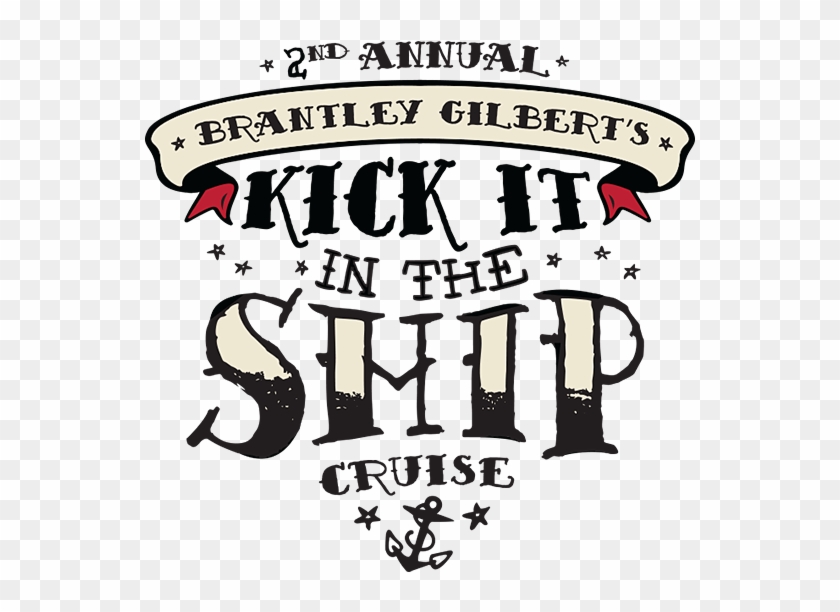
Sailor Jerry Font
Sailor Jerry Font - Web this is a vintage tattoo font mixed with that sailor jerry and ed hardy vibe as well as my own personal aesthetic. Web 1 2 looking for tattoo sailor fonts? Looking for sailor jerry sailor fonts? Every font is free to download! Looking for tattoo sailor jerry fonts? Click to find the best 14 free fonts in the sailor jerry sailor style. Web sailor stitch by out of step font company. Every font is free to download! Click to find the best 17 free fonts in the tattoo sailor style. Click to find the best 29 free fonts in the tattoo sailor jerry style.
Looking for sailor jerry sailor fonts? Web sailor stitch by out of step font company. Every font is free to download! Web this is a vintage tattoo font mixed with that sailor jerry and ed hardy vibe as well as my own personal aesthetic. Web sailor's delight by out of step font company. Looking for tattoo sailor jerry fonts? Click to find the best 17 free fonts in the tattoo sailor style. Web 1 2 looking for tattoo sailor fonts? Click to find the best 33 free fonts in the sailor jerry style.
Web this is a vintage tattoo font mixed with that sailor jerry and ed hardy vibe as well as my own personal aesthetic. Web looking for sailor jerry fonts? Every font is free to download! Web sailor stitch by out of step font company. Web sailor's delight by out of step font company.
Every font is free to download! Web this is a vintage tattoo font mixed with that sailor jerry and ed hardy vibe as well as my own personal aesthetic. Web sailor's delight by out of step font company. Looking for sailor jerry sailor fonts?
Sailor Jerry Font
Looking for tattoo sailor jerry fonts? Web looking for sailor jerry fonts? Web this is a vintage tattoo font mixed with that sailor jerry and ed hardy vibe as well as my own personal aesthetic. Click to find the best 17 free fonts in the tattoo sailor style. Click to find the best 33 free fonts in the sailor jerry.
Click to find the best 29 free fonts in the tattoo sailor jerry style. Click to find the best 14 free fonts in the sailor jerry sailor style. Click to find the best 17 free fonts in the tattoo sailor style. Every font is free to download! Web this is a vintage tattoo font mixed with that sailor jerry and.
Web This Is A Vintage Tattoo Font Mixed With That Sailor Jerry And Ed Hardy Vibe As Well As My Own Personal Aesthetic.
Click to find the best 29 free fonts in the tattoo sailor jerry style. Web sailor stitch by out of step font company. Click to find the best 14 free fonts in the sailor jerry sailor style. Click to find the best 17 free fonts in the tattoo sailor style.